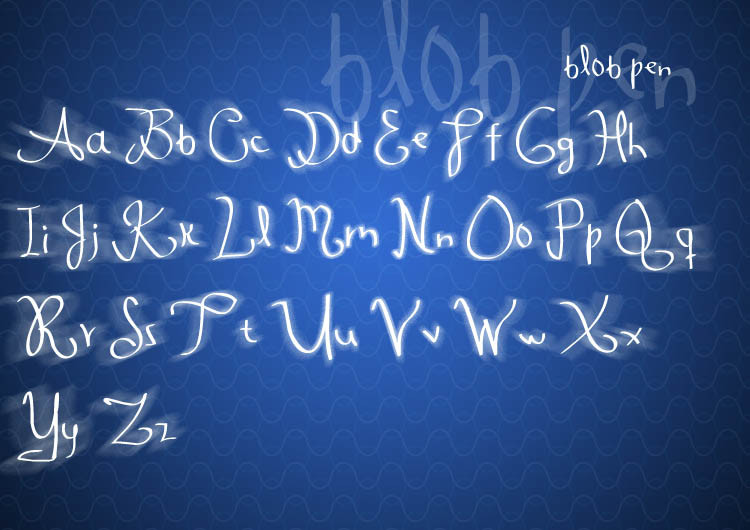
just a fun font I created using the blob brush tool on illustrator.I didn't bother to measure so everything is out of proportion and it's not aligned- for fun use. If you use it let me know, I'd like to see where you used it
This is an interesting font. It stood out from all of the others when I was searching for new fonts. Good job at making a fun, unique font!